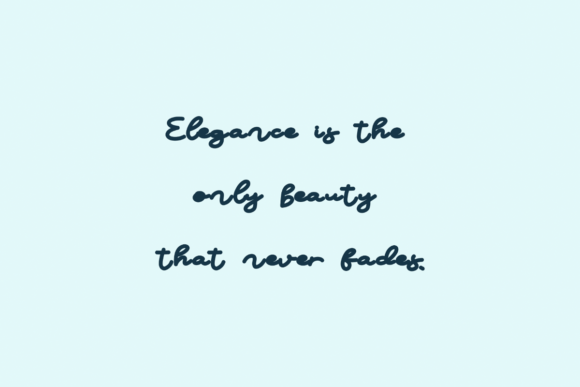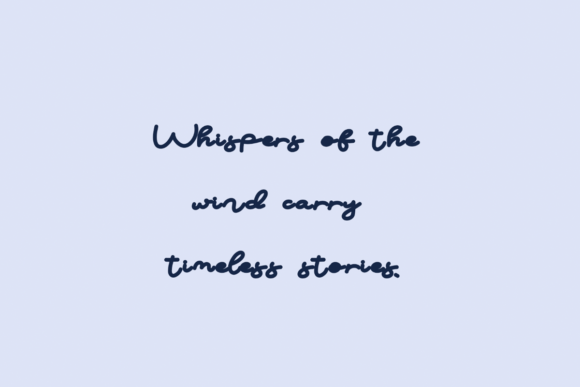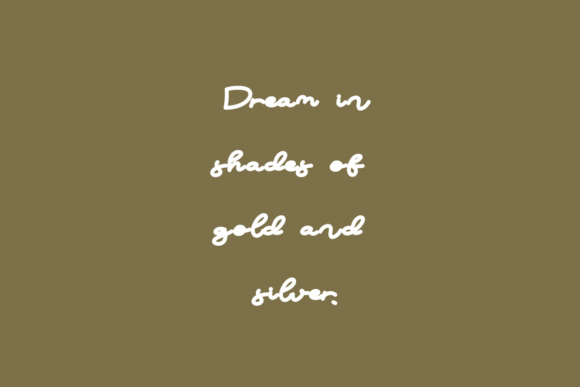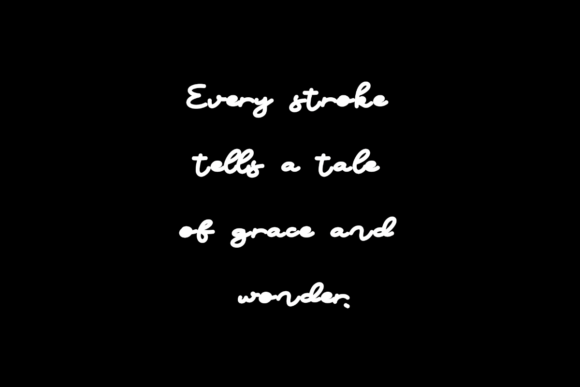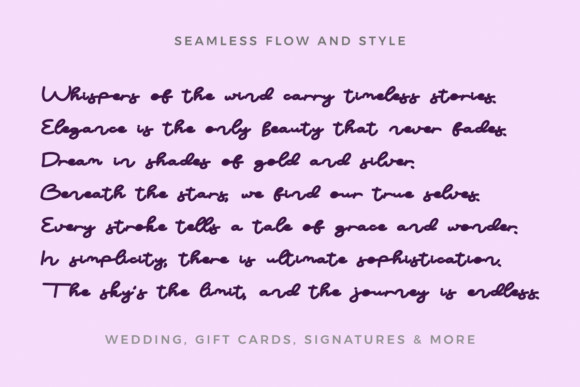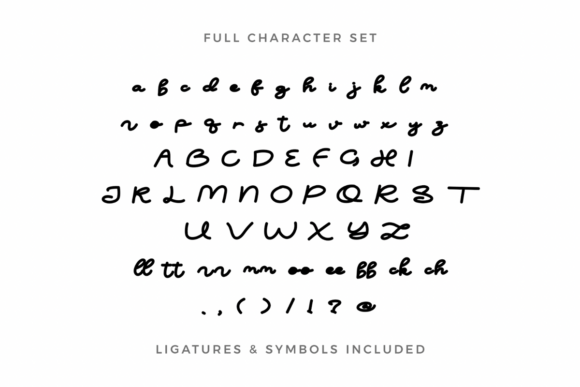
Introducing Briella Font: The Epitome of Elegance and Charm
In the realm of typography, few fonts manage to capture the essence of warmth and tenderness as effectively as Briella. This rare and distinctive script font is a masterpiece of modern typography, blending the traditional art of hand-lettering with contemporary aesthetics to create a truly unique and captivating visual experience. Whether you’re a designer, crafter, or simply an enthusiast of beautiful typography, Briella is sure to leave a lasting impression.
The Art of Hand-Lettering: A Timeless Tradition
Briella’s roots lie in the timeless tradition of hand-lettering, an art form that has been cherished for centuries. The font’s creator has meticulously crafted each letter to reflect the nuances and imperfections of handwritten text, imbuing Briella with a sense of personality and character that is often lacking in digital fonts. The result is a font that feels both intimate and sophisticated, perfect for projects that require a touch of warmth and humanity.
Seamless Blend of Tradition and Modernity
What sets Briella apart from other script fonts is its seamless blend of traditional hand-lettering techniques with modern typographic aesthetics. The font’s elegant lines, flowing curves, and carefully considered letter spacing make it an exemplary model of contemporary typography. At the same time, Briella’s roots in hand-lettering ensure that it retains a sense of authenticity and emotional connection that is often lost in more mechanized fonts.
A Perfect Match for Creative Projects
Briella’s unique blend of elegance and charm makes it an ideal choice for a wide range of creative projects. Whether you’re designing a wedding invitation, crafting a brand identity, or simply looking for a beautiful font to enhance your digital content, Briella is sure to impress. The font’s versatility and expressiveness make it perfect for use in:
• Wedding stationery and invitations
• Brand identities and logos
• Digital content, such as blog posts and social media graphics
• Print materials, including brochures and flyers
• Packaging and label design
Key Features of Briella Font
So, what makes Briella such a standout font? Here are just a few of its key features:
• Exquisite, hand-crafted lettering
• Elegant, flowing lines and curves
• Carefully considered letter spacing and kerning
• Support for a wide range of languages
• Perfect for both digital and print applications
Why Choose Briella Font?
With so many fonts to choose from, why should you choose Briella? Here are just a few compelling reasons:
• Uniqueness: Briella’s distinctive style ensures that your text will stand out from the crowd.
• Elegance: The font’s elegant lines and curves add a touch of sophistication to any project.
• Warmth: Briella’s hand-crafted lettering imbues your text with a sense of warmth and humanity.
• Versatility: The font’s versatility makes it perfect for use in a wide range of creative projects.
In conclusion, Briella font is a true masterpiece of modern typography. Its unique blend of traditional hand-lettering techniques and contemporary aesthetics makes it a perfect choice for designers, crafters, and anyone looking to add a touch of elegance and charm to their text. With its exquisite lettering, elegant lines, and carefully considered letter spacing, Briella is sure to leave a lasting impression. Whether you’re working on a creative project or simply looking for a beautiful font to enhance your digital content, Briella is an excellent choice.